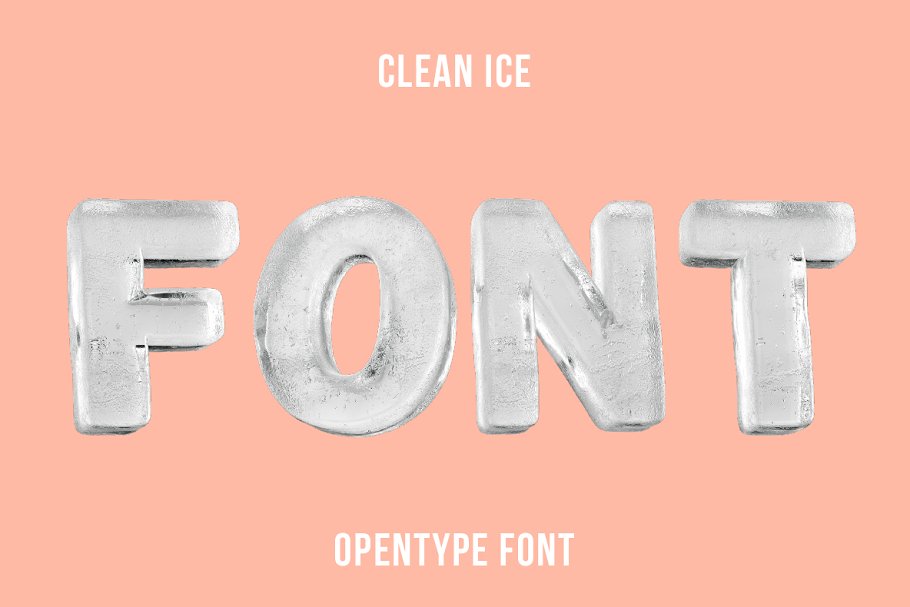
Introducing Clean Ice Font, the font you need for water-themed projects! Created by the talented Vladimir Loginov, this font family boasts a high definition OpenType-SVG format with uppercase characters, numerals, and basic punctuation. With a draw height of roughly 800 pixels, Clean Ice Font is perfect for water-themed designs that require a crisp and sharp font.
What makes Clean Ice Font stand out is its unique and captivating feature - it's a color OpenType file! This means that this font will only show up in apps that are compatible with color bitmap fonts. While it requires Photoshop CC 2017, Illustrator CC 2018, or Procreate 4.3 (or newer) to use, the good news is that now that OpenType-SVG has been adopted as the industry standard, you can start using color fonts across your favorite software and hardware, including but not limited to Photoshop, Illustrator, InDesign, QuarkXPress, Keynote, PowerPoint, and Word.
In short, Clean Ice Font is the perfect choice for water-themed projects that require a stunning and high-quality font with unique color capabilities. So what are you waiting for? Head over to our website to download Clean Ice Font today and take your designs to the next level!